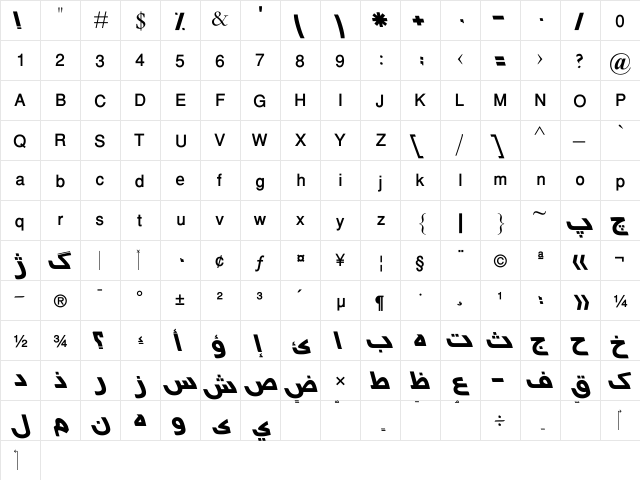
AGT Abdul Ahad Mohmand Bold
| Designer | Ahmad Gul Totakhyl |
Design Context for AGT Abdul Ahad Mohmand Typeface
AGT Abdul Ahad Mohmand offers clean, dependable letterforms without strong stylistic allegiance, making it a practical choice for designers who need flexibility. Its bold stroke weight gives it real presence on the page.